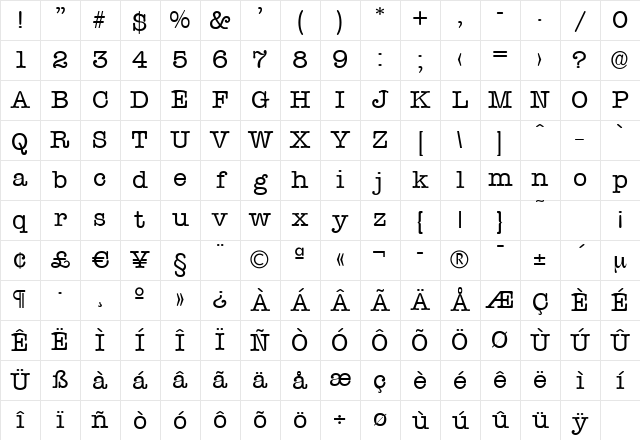
ThorBecker Regular
Design Context for ThorBecker
ThorBecker is a composed and adaptable typeface that performs quietly and consistently across a wide range of design contexts.
Pro Tip: Use ThorBecker in both headline and body roles to test its range before committing to a single application.